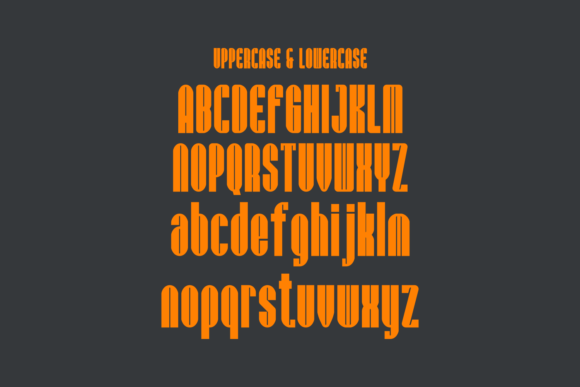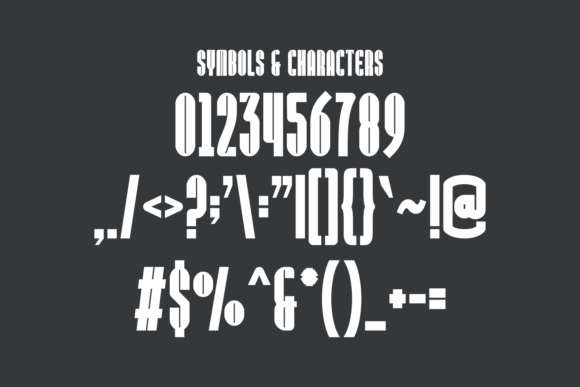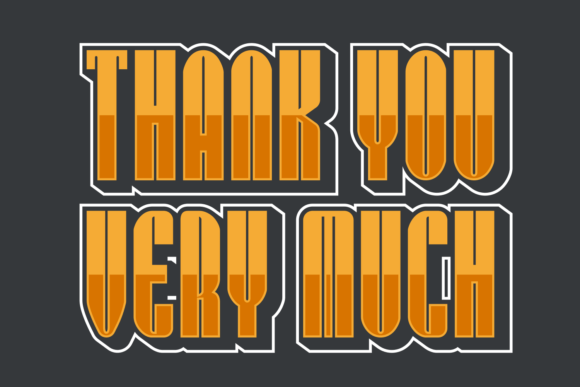
Introduction to Redosan Font
Redosan is an incredibly unique display font.
Redosan Font offers exceptional quality and versatility, making it a valuable addition to your design toolkit. Whether you’re creating for personal projects or commercial use, Redosan Font delivers professional results.